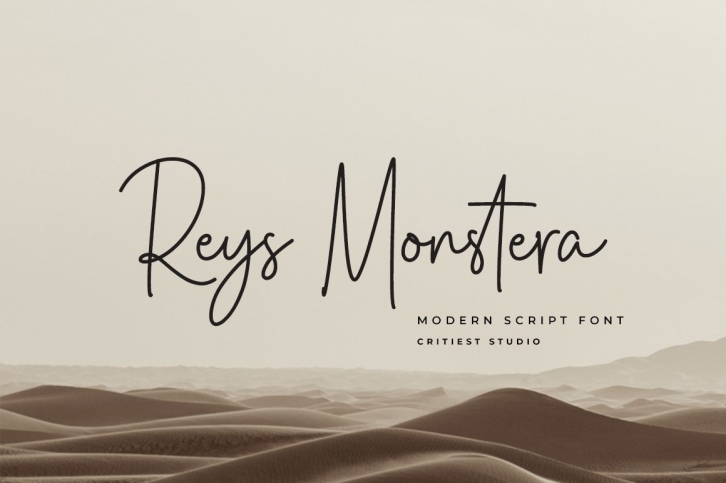
Rey Monstera is a gorgeous font that was realeased on October 2, 2022. The font can be used in many style contexts and design environments. Perfect for invitations, magazines, websites, logos, and more! It was designed by Critiest Studio and the file size is 18.49 MB. Thanks for checking out this font!